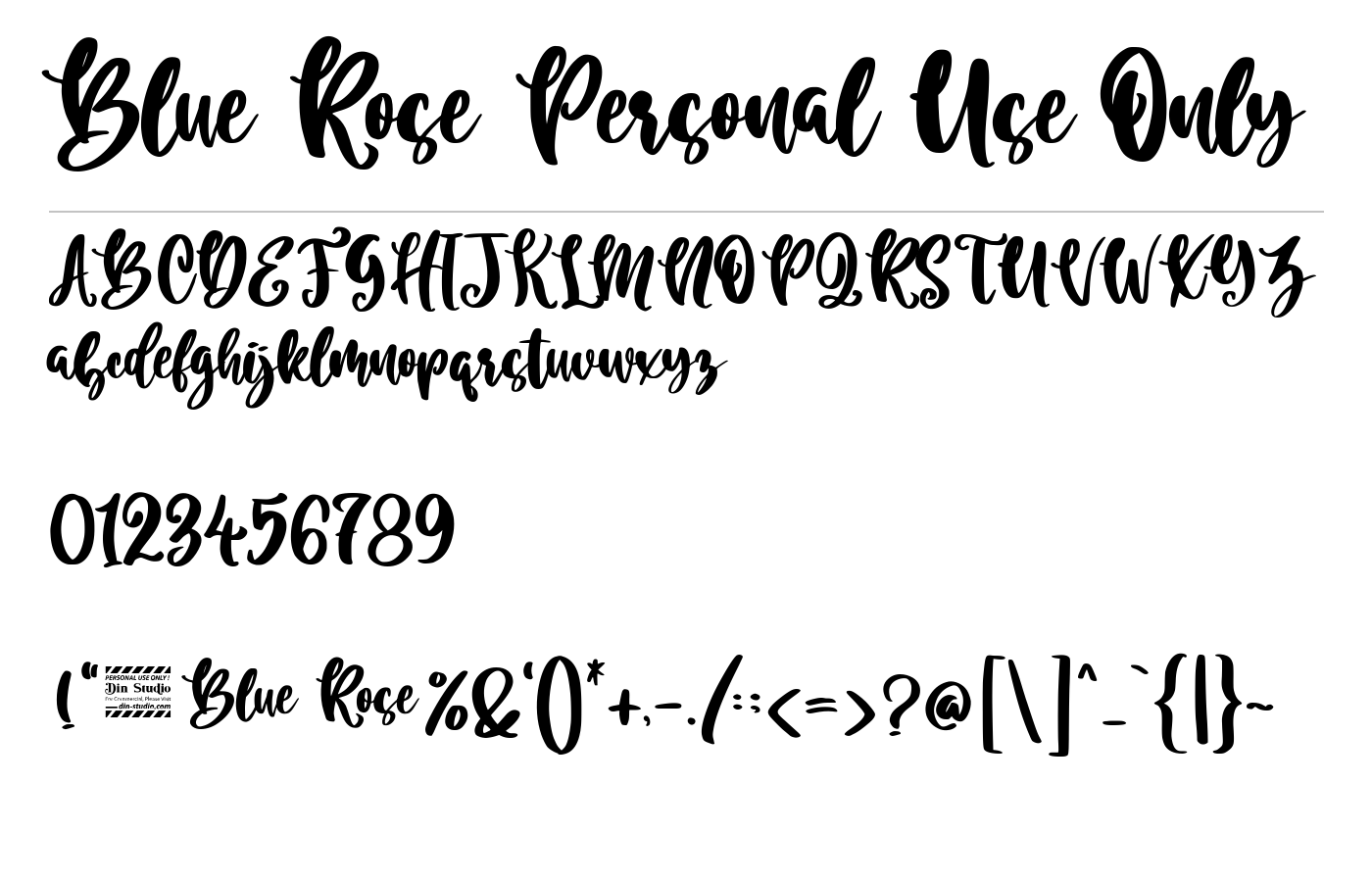
Blue Rose Personal Use Only is a bold, playful script font featuring smooth, flowing strokes with moderate contrast and charming swashes that give it a hand-crafted, artistic feel. Its lively letterforms and expressive curves make it ideal for creative branding, invitations, and eye-catching headlines where a friendly, informal vibe is desired. This font works best for personal projects, logos, and decorative text that aim to convey warmth and personality.
Blue Rose Personal Use Only Font
About Blue Rose Personal Use Only Font
| Font family | Blue Rose Personal Use Only Font |